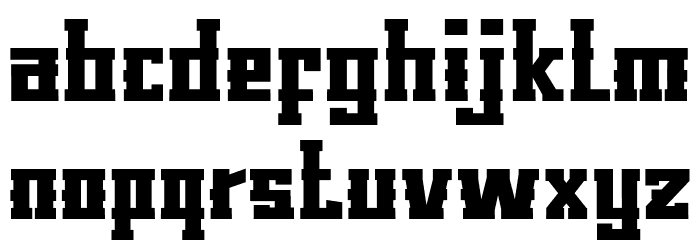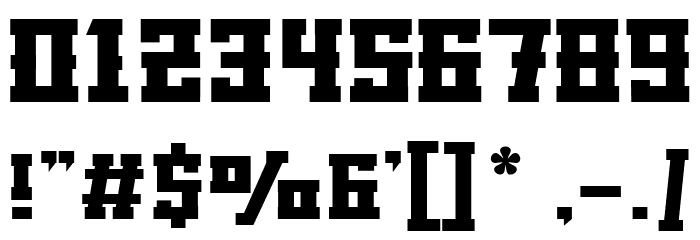
KLOCK Font
This font features a bold and blocky design with a distinct pixelated appearance. The characters are uniformly structured with sharp edges and a consistent height, giving it a digital or retro video game aesthetic. The uppercase and lowercase letters maintain a similar width, creating a cohesive look across the alphabet. Numbers and special characters follow the same style, ensuring uniformity throughout. The font's geometric nature makes it stand out, ideal for projects that require a strong visual impact.
- Proposed Projects: Ideal for video game designs, retro-themed posters, digital art, and branding that requires a strong, impactful typeface.
- Overall Style: Retro, Digital